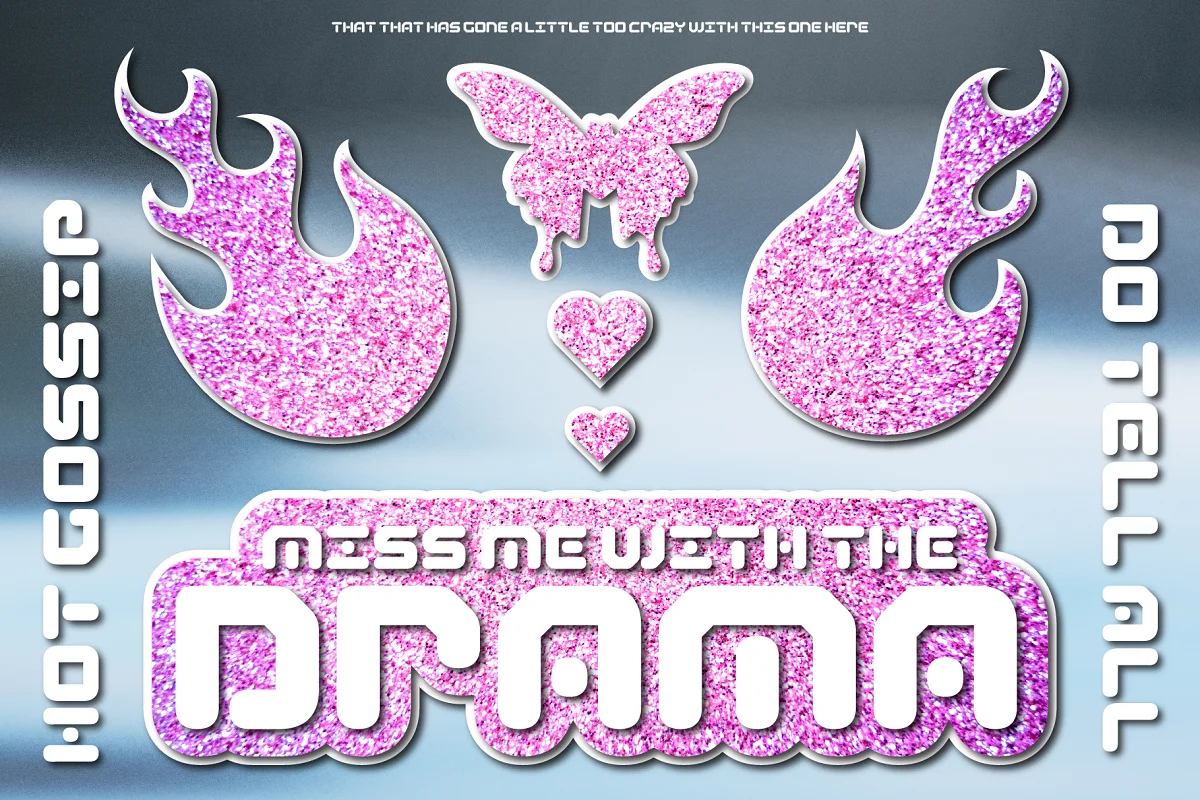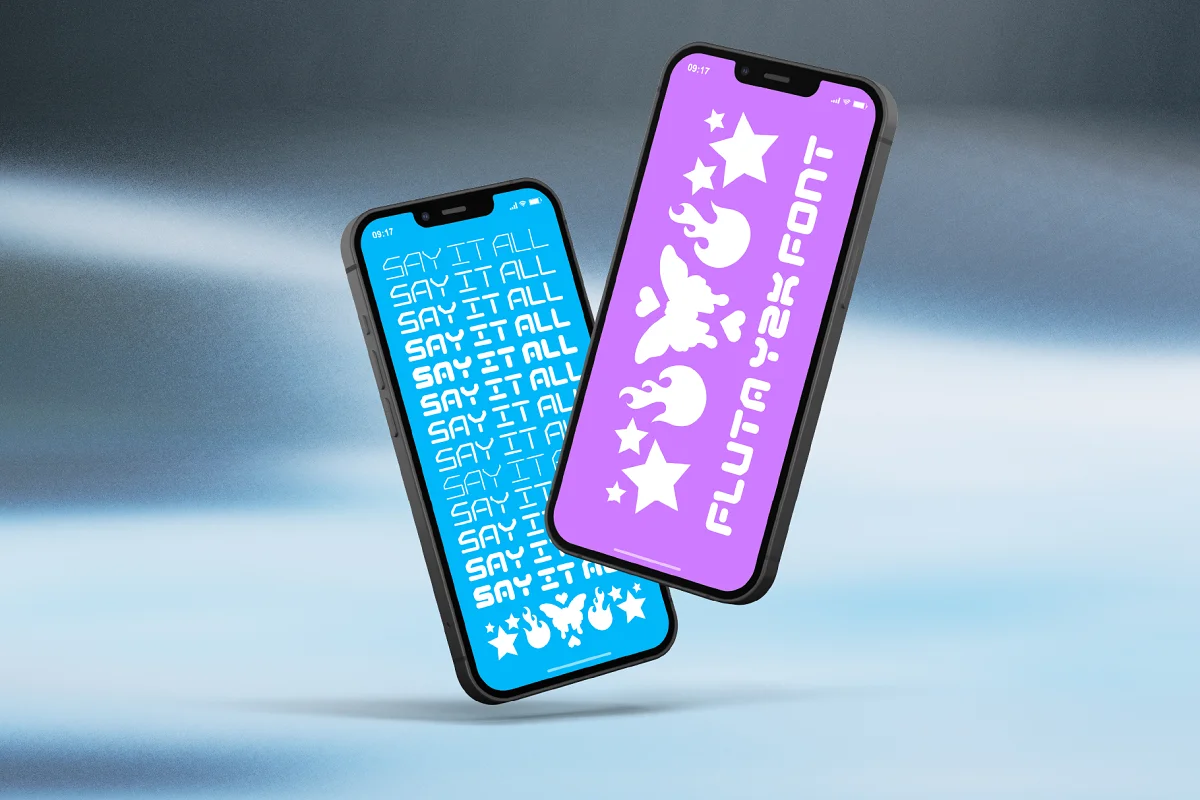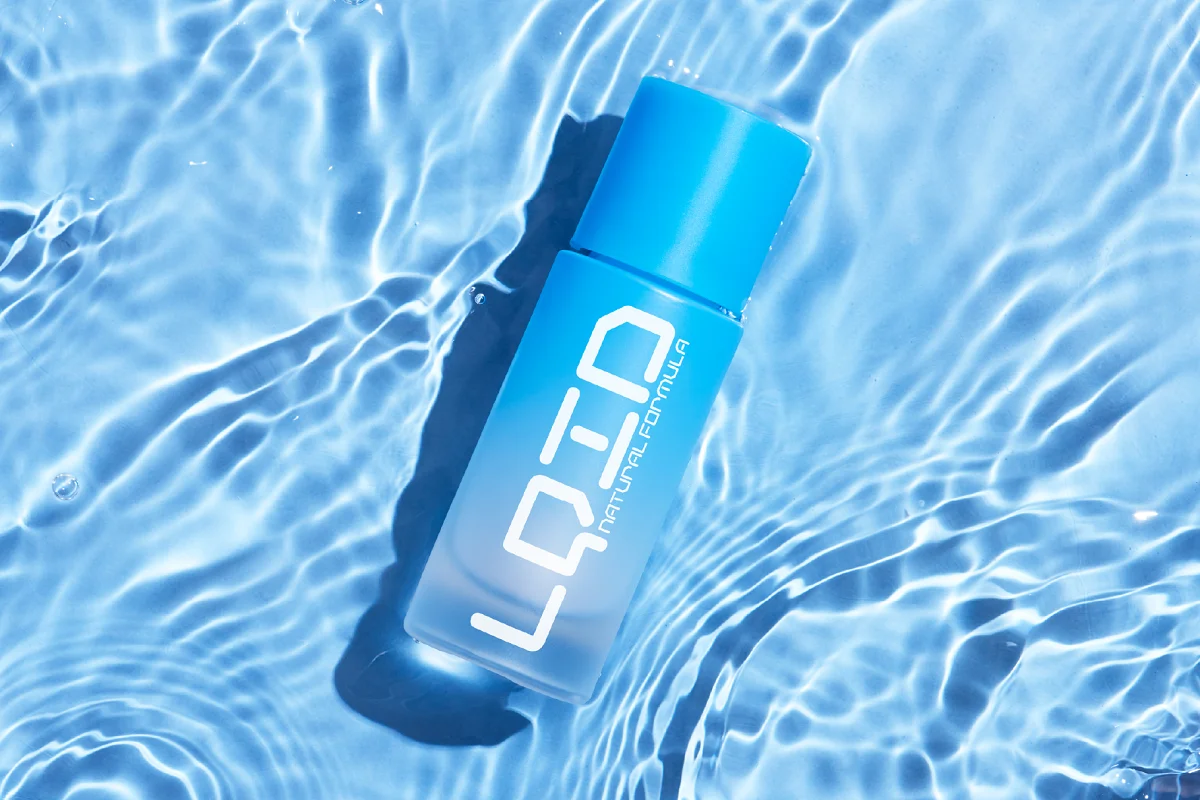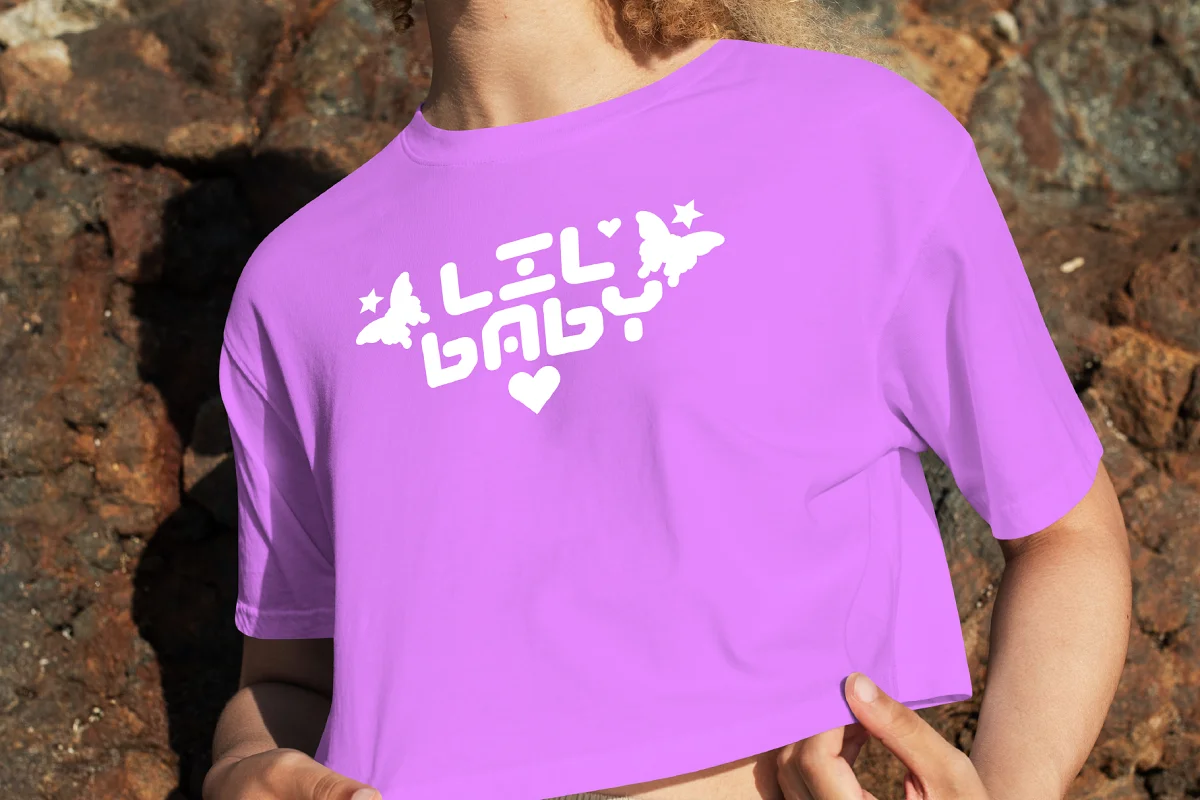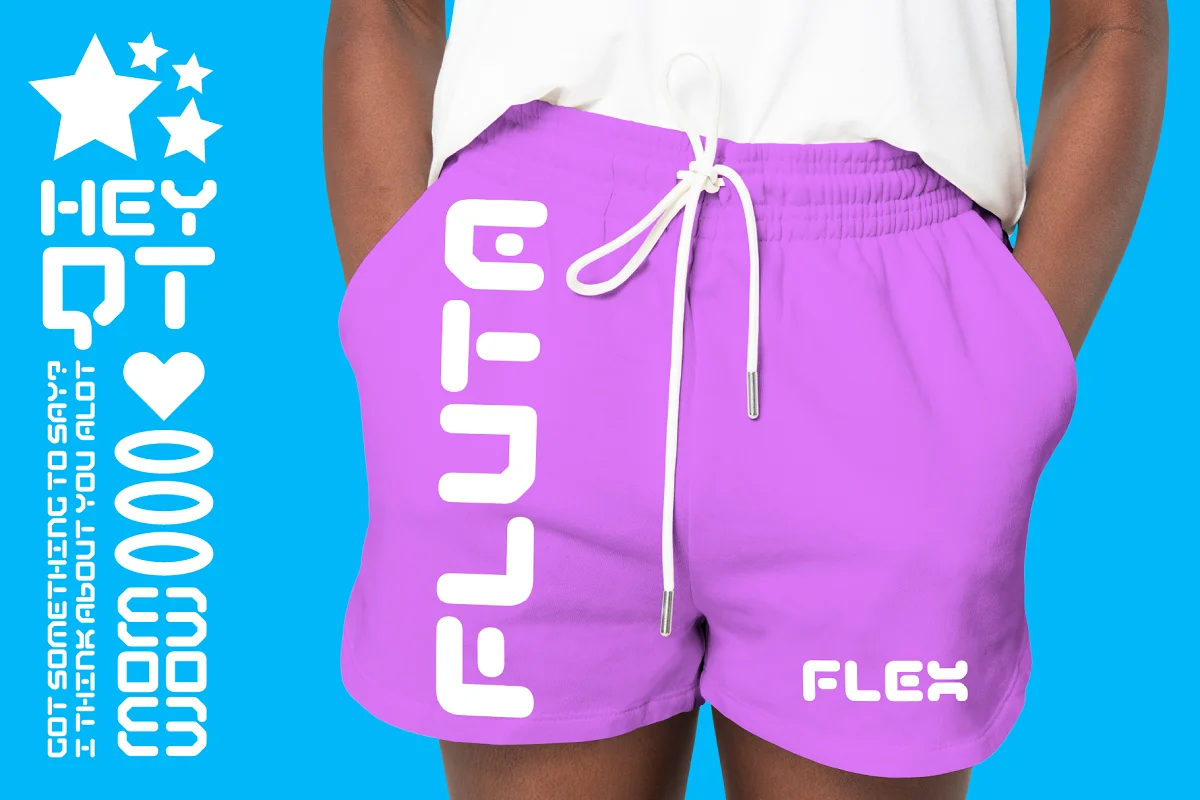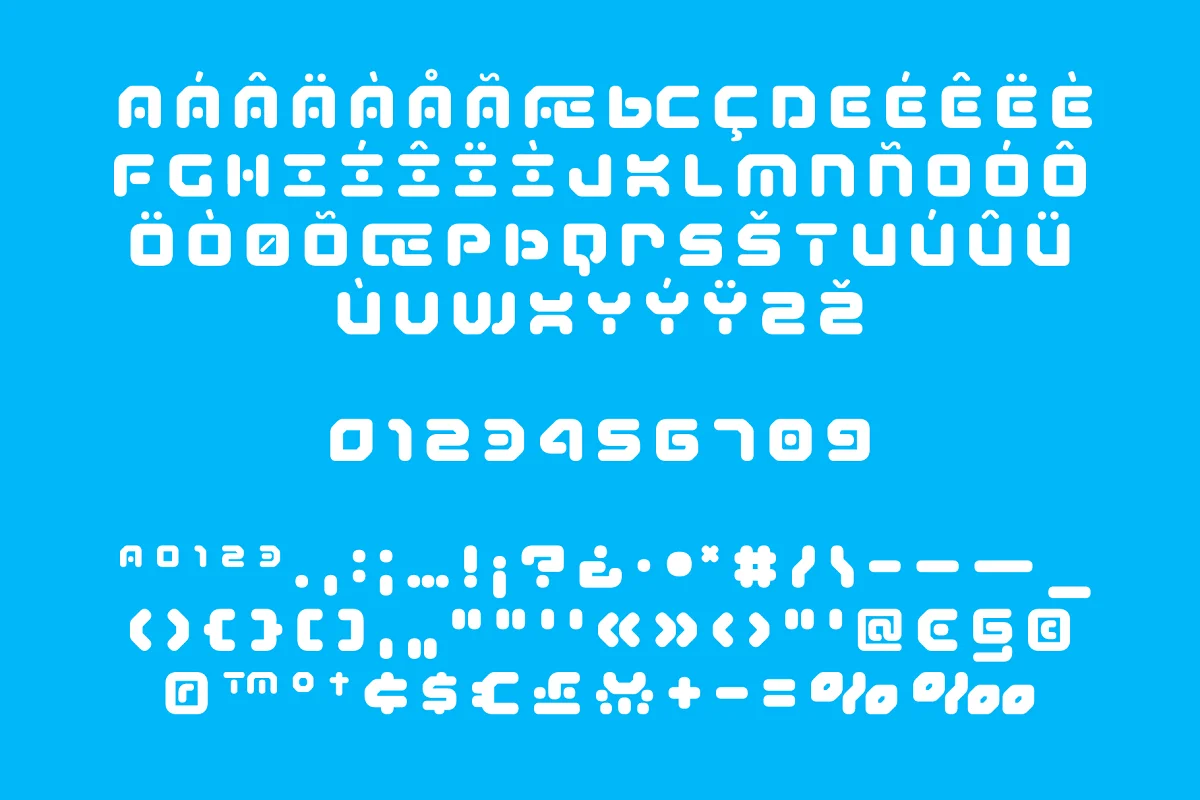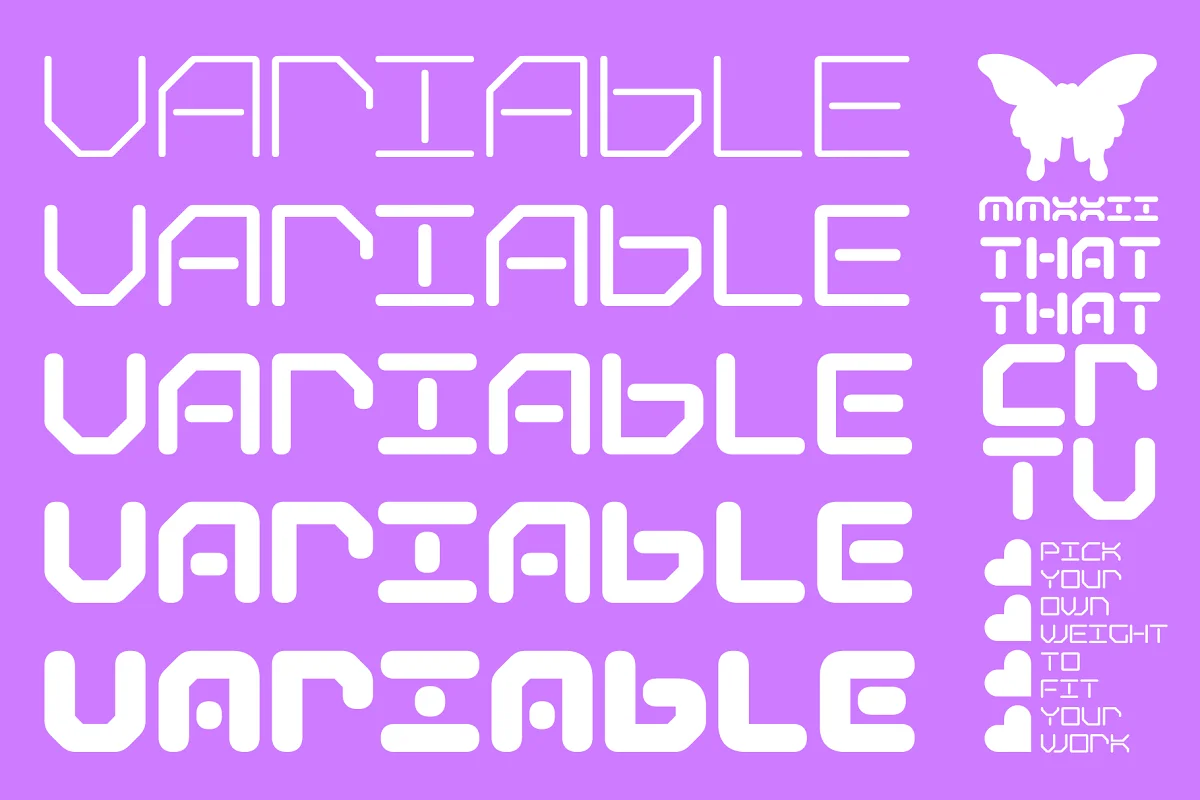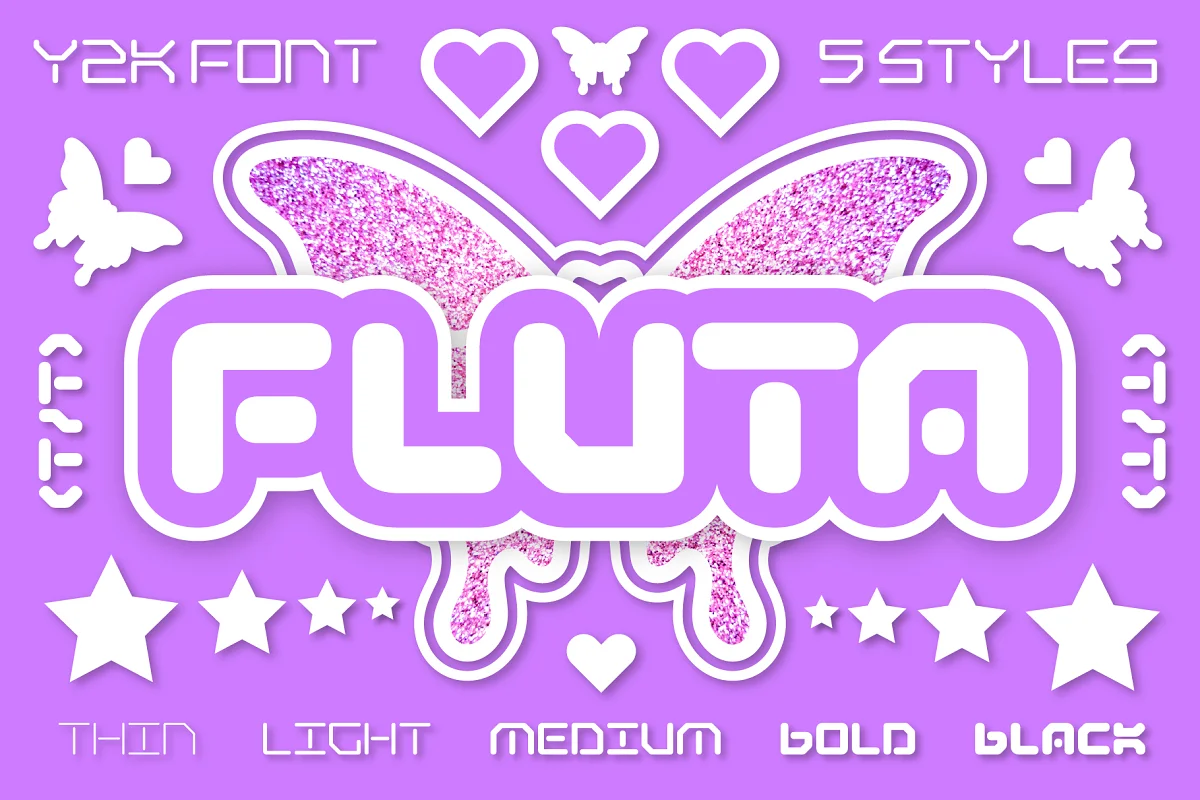
Welcome to Fluta: Your New Favorite Y2K Font! 🎉
Fluta is a delightful variable font that perfectly captures the vibrant and playful spirit of Y2K vibes! This digital download is available for instant access, letting you dive right into your creative projects without delay. Whether you’re designing a retro-inspired logo or crafting eye-catching social media graphics, Fluta brings a modern twist to the nostalgic aesthetics of the early 2000s. 🌟
This fabulous font family comes in 5 unique styles, offering you incredible versatility for all your design needs. With its bold and quirky character, Fluta is ideal for editorial layouts, posters, branding, and much more. Let your creativity flow with this fun display font that resonates with the Y2K vocabulary! 🌈
- Variable Weight: Adjust the thickness to suit your design style and make your text pop! 💥
- Multiple Styles: Enjoy 5 different weights to choose from for any project, making it perfect for headlines or body text.
- Digital Bubble Gum Aesthetic: Capture the essence of the Y2K era, giving your designs a nostalgic flair.
- 5 Weights
- Variable
- Caps
- Numbers
- Punctuation
Fluta is perfect for graphic designers, branding specialists, and anyone looking to infuse their work with a touch of Y2K charm. Whether you’re creating a retro-themed project or simply want to add some cool vibes to your designs, this font is your go-to choice! ✨